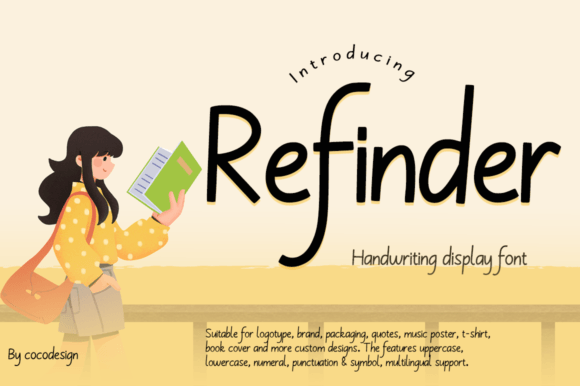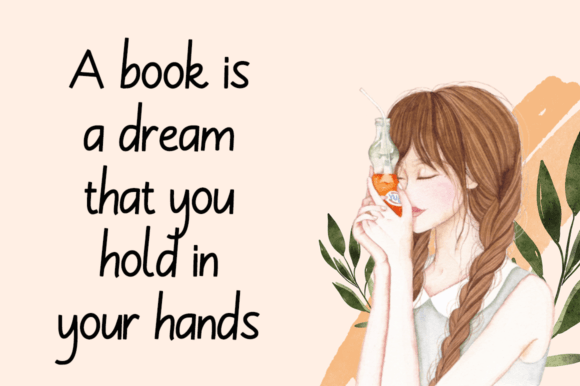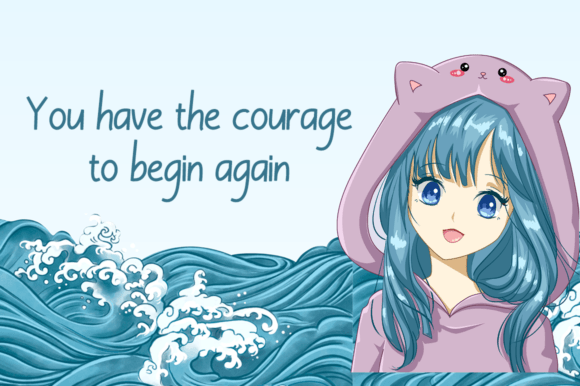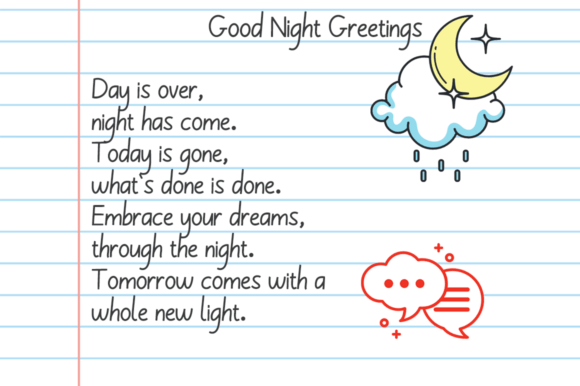
Refinder Font: A Cute Handwritten Font for Branding & Quotes!
About the Refinder Font
The wait is over! The incredible Refinder Font is now available for your design toolkit. Feast your eyes on Refinder, a versatile typography tool custom-built to infuse a splash of style and sophistication to your design arsenal. Perfectly tailored for elegant logotypes, striking brand identities, engaging packaging designs, inspiring quotes, dynamic music posters, casual t-shirts, and compelling book covers. Refinder offers a complete range of uppercase, lowercase, numerals, punctuation, symbols, and priority multilingual support to cater to your diverse design needs. Never hesitate to reach out for support or inquiries, your artistic journey means the world to us. Here’s to great design with Refinder!
Refinder Font Usage Examples
Refinder Font Example